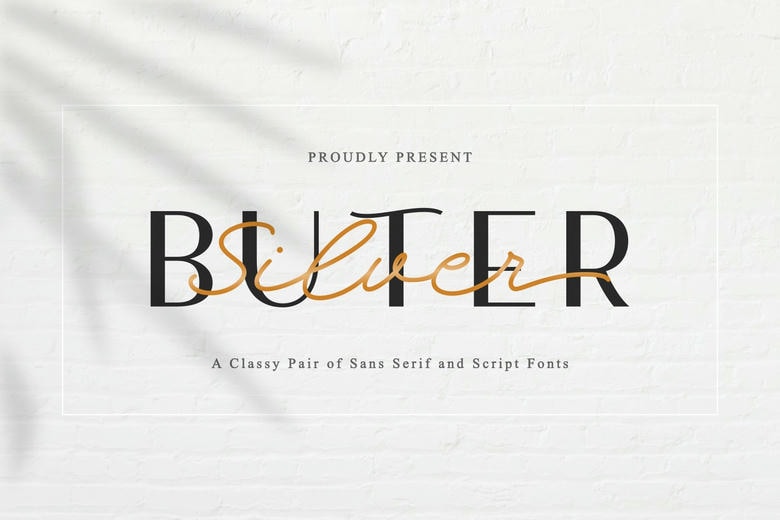
Buter Silver Font
Introducing Buter Silver Font Duo: beautiful combination of simple and minimalistic sans-serif and elegant and delicate handwriting. The Buter Silver creates an up-to-date design with delicate of individual style, ideal for designs that want neutrality but not coldness.
It is suitable for branding purposes, website designing, graphic quotes, weddings invitation, and so on that provides less complex sophistication of looking great architecturally.
Buter Silver Font Duo